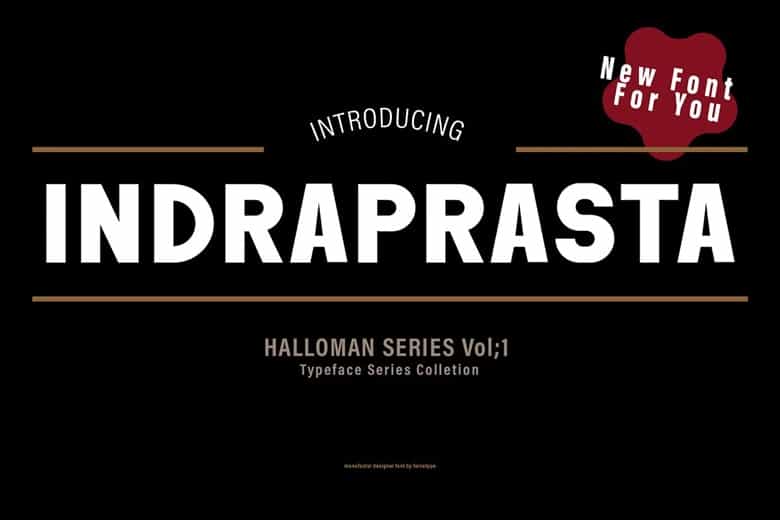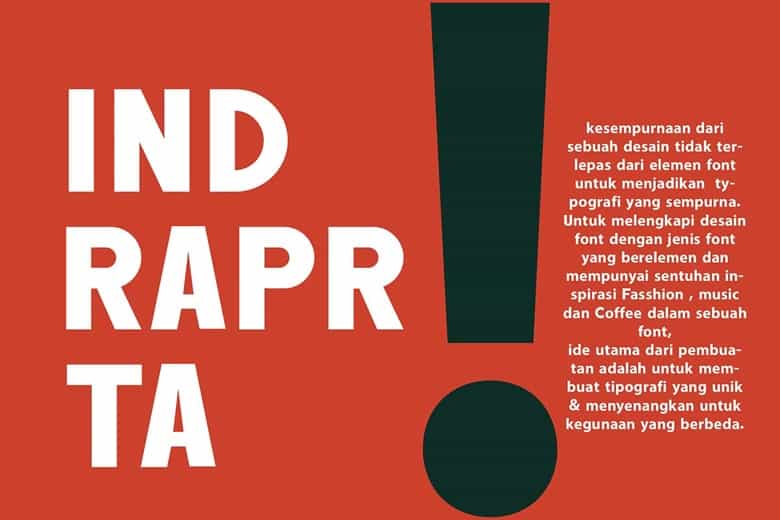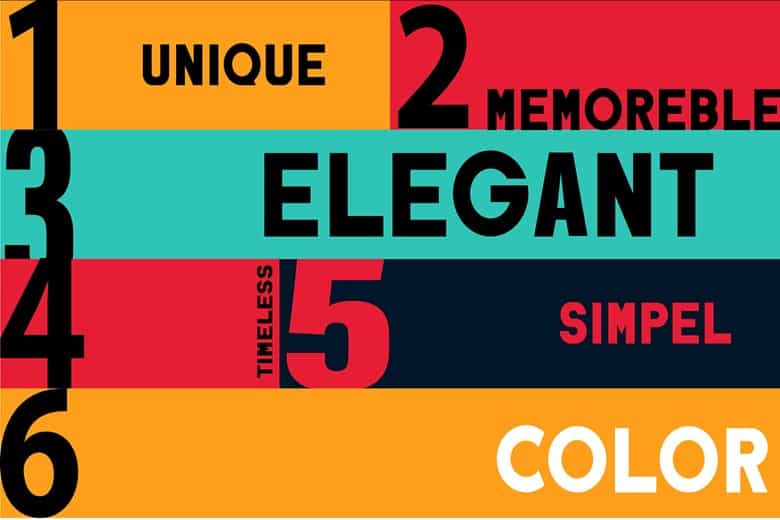
Discover Halloman Font, part of the Sans Serif collection—a versatile and unique font perfect for adding a personal touch to your projects. Download it for free and enjoy crafting designs with style, from invitations to social media posts. This font is available exclusively for personal use, giving you the freedom to create without limits. Unlock your creativity with Halloman Font today!
Halloman is a new sans-serif font from ForzaType, Hope that words flying on its letters inspired by cover from old books. Ideal for your display design requirements hence useful in making of notice boards, brochures and taglines in identity logos, as well as an impression that will impress the eye.